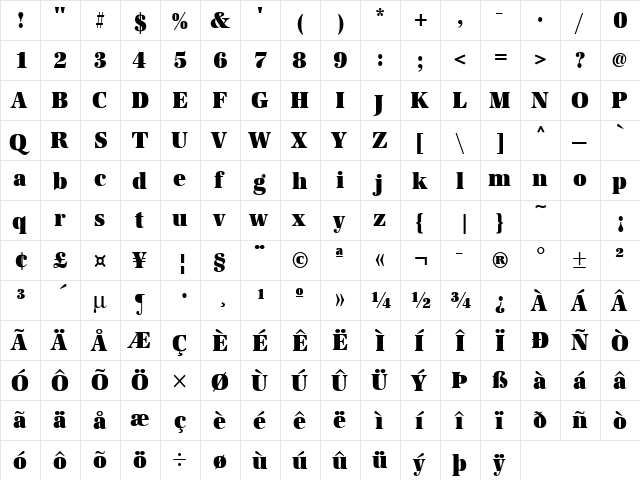
URWAntiquaTUltBolExtNar Regular
Design Context for URWAntiquaTUltBolExtNar Typeface
URWAntiquaTUltBolExtNar offers clean, dependable letterforms without strong stylistic allegiance, making it a practical choice for designers who need flexibility.